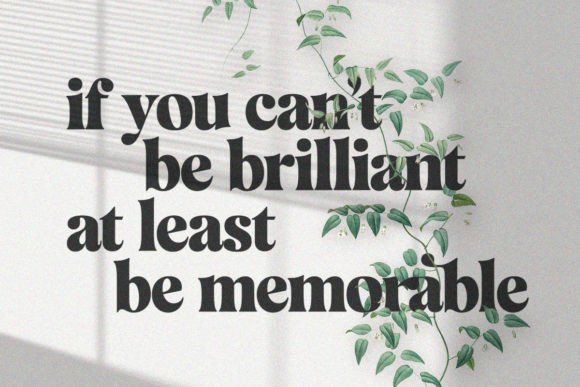
Mazaeni Font
Mazaeni is a daring and sophisticated display typeface perfect for logotypes, posters, and editorial use. Masterfully designed to become a true favorite, this font has the potential to bring each of your creative ideas to the highest level!